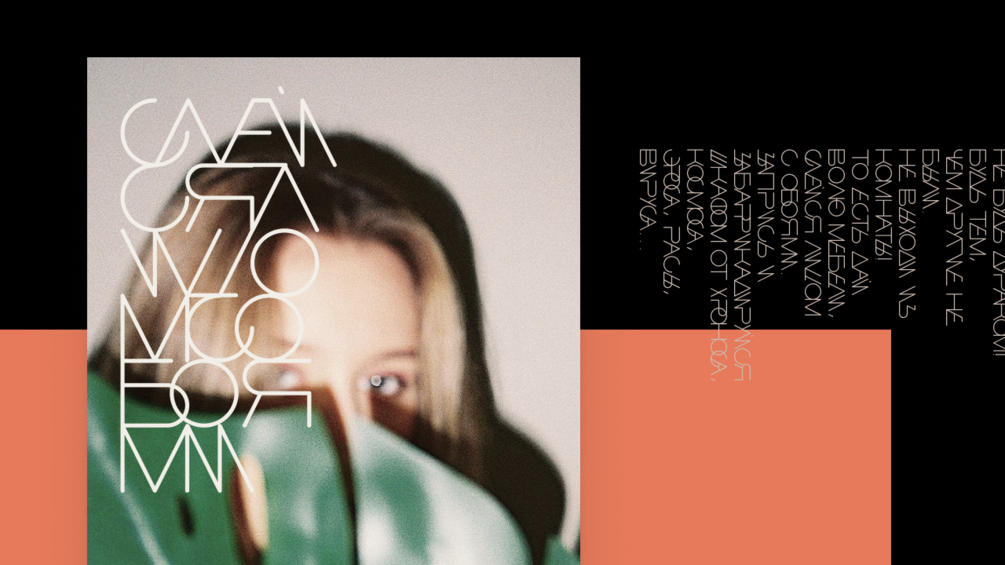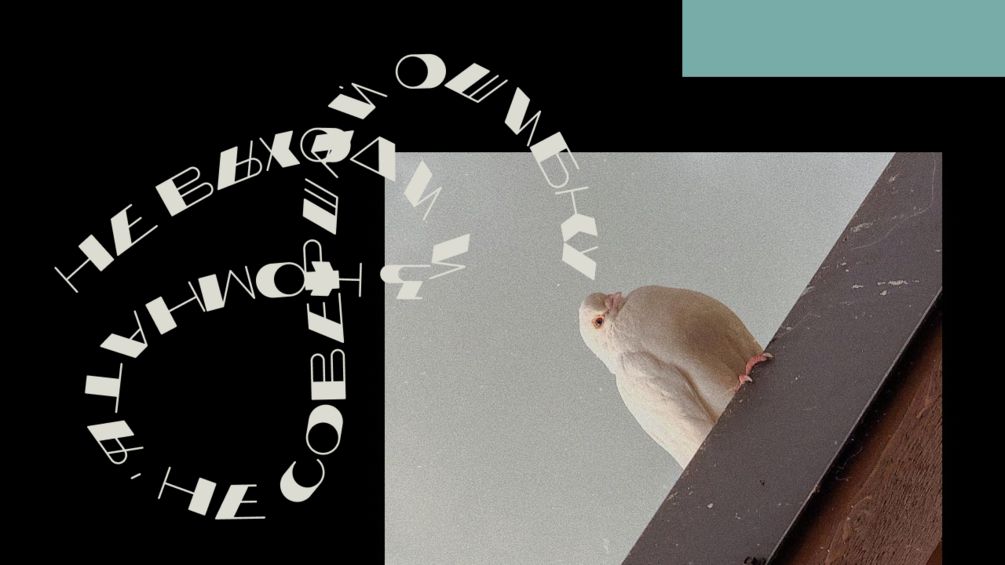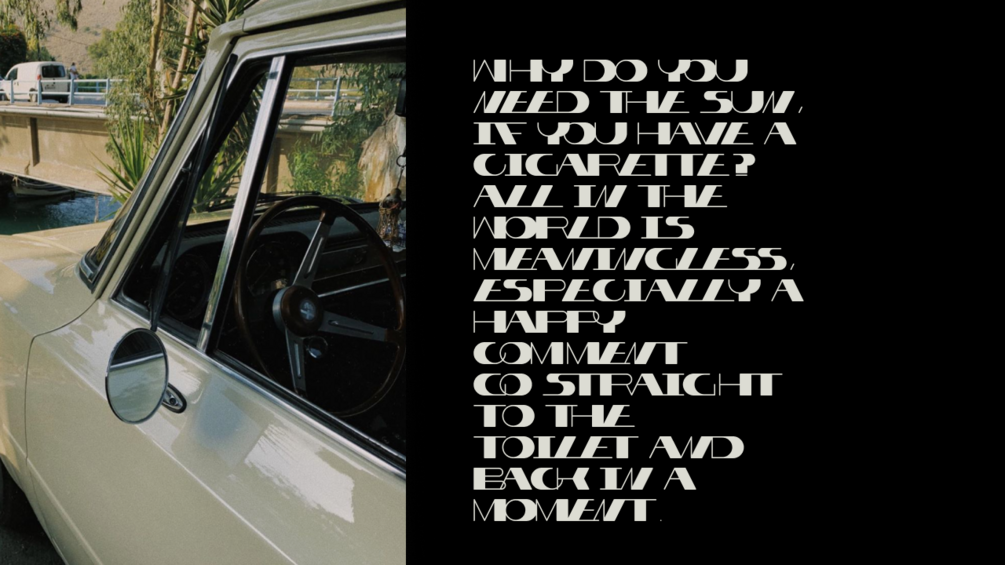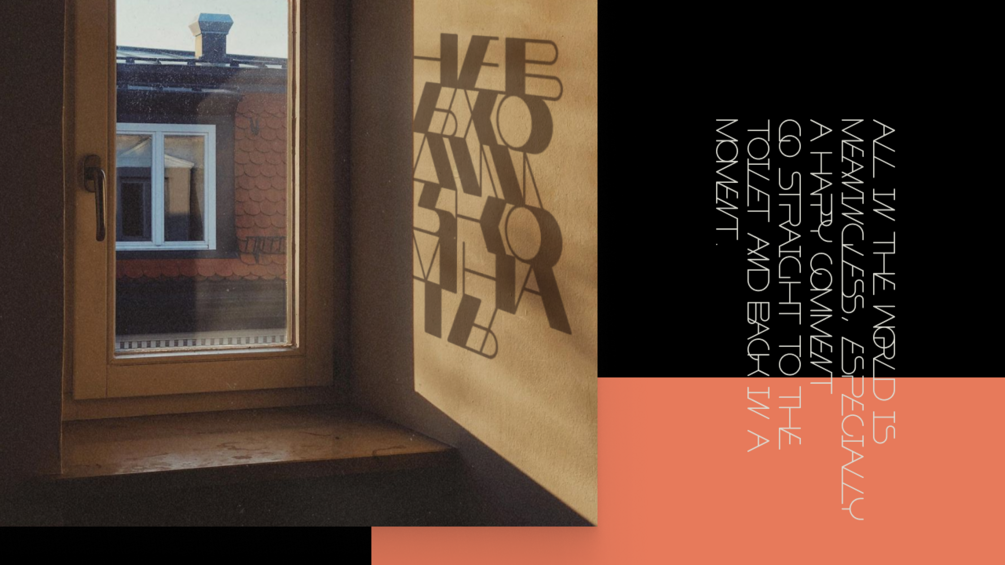
Usually - free display font
This free display font contains regular and bold variations. The dynamic forms are great for posters, album covers and etc. Included Latin and Cyrillic glyphs.